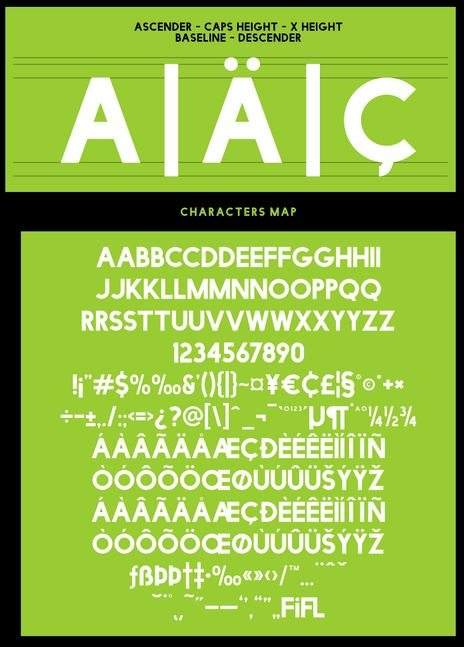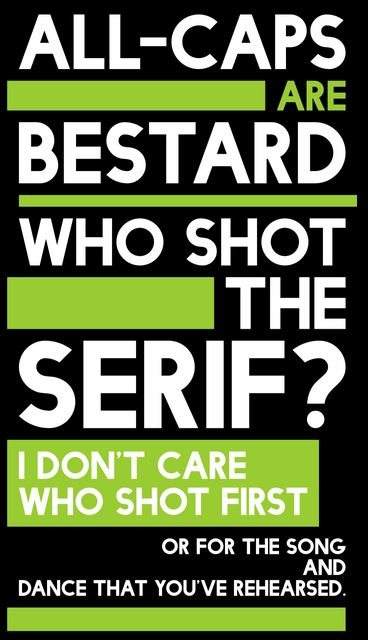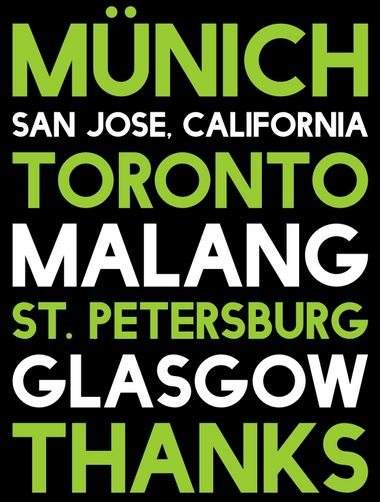
Facile Sans
FacileSans is an all caps sans serif font with bold and geometric shape. Suits best for modern / clean designs, logos, headlines, etc. Available for free (personal and commercial use) in .ttf and .otf.